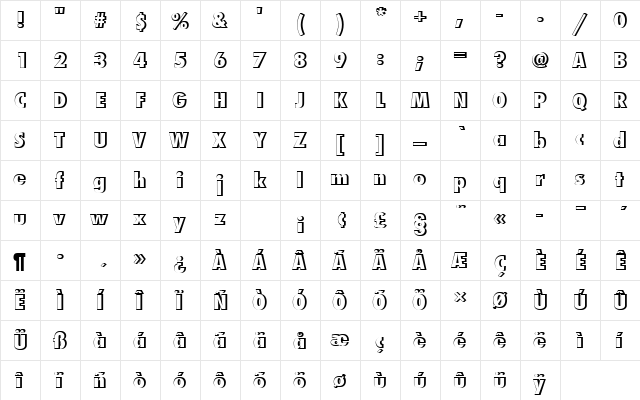
FuturaTExtBolConRe1 Regular
Design Context for FuturaTExtBolConRe1 Typeface
FuturaTExtBolConRe1 has a distinctly futuristic character, with geometric precision and clean angles that feel at home in technology, gaming, and sci-fi contexts.